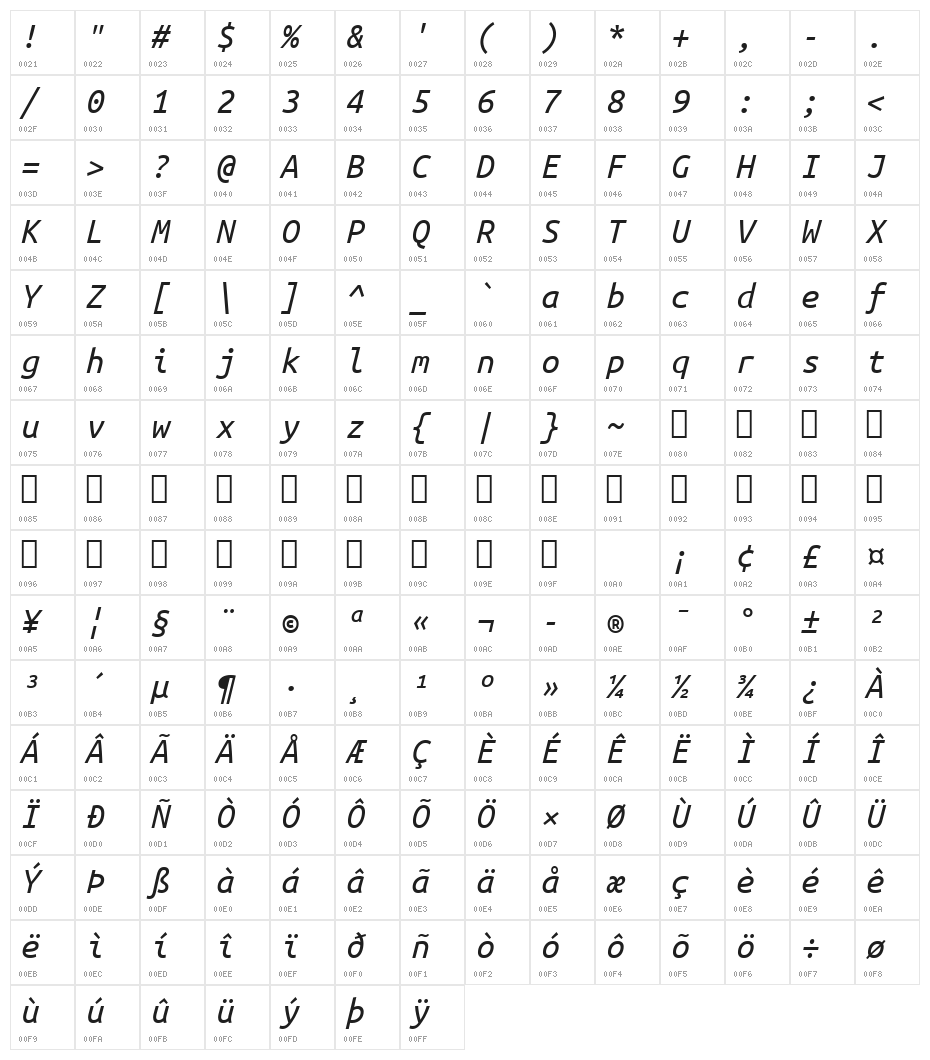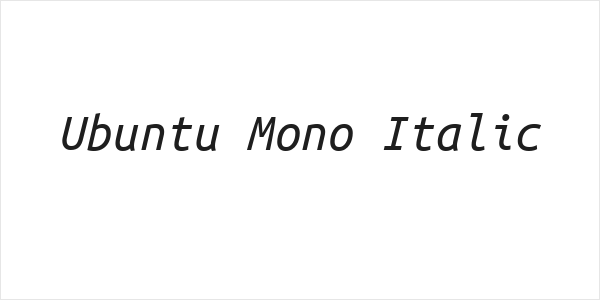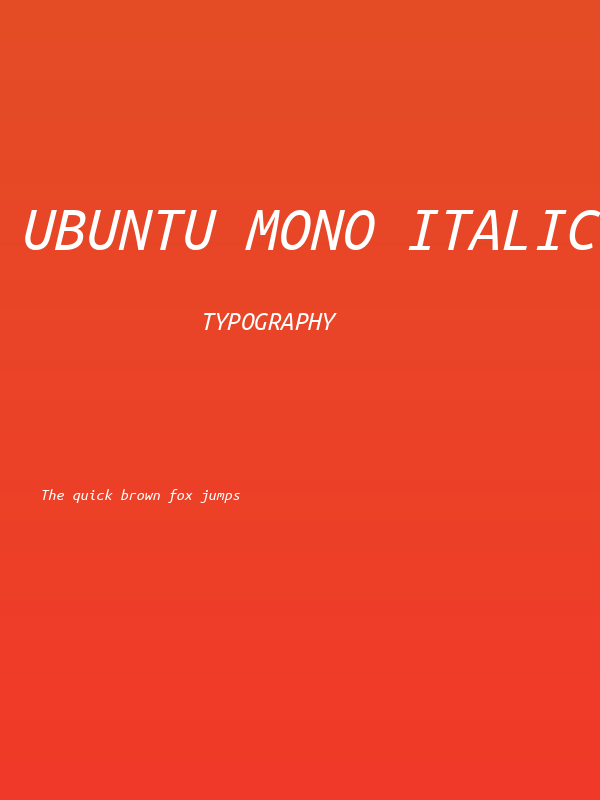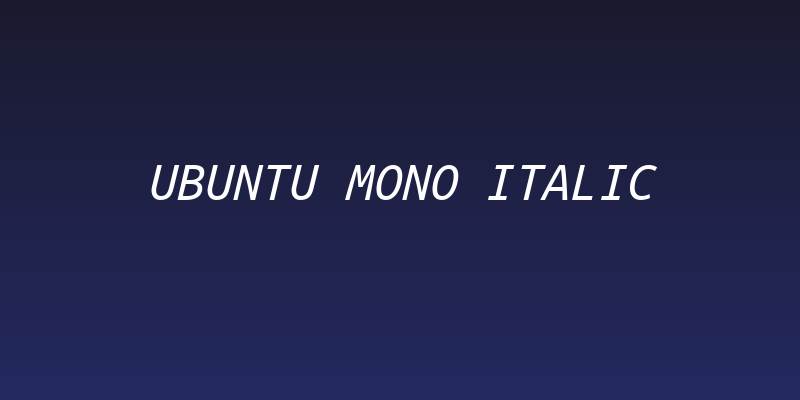
Ubuntu Mono Italic Font
Ubuntu Mono Italic Description
This font features a clean and modern monospaced design with a distinct italic slant. Each character is evenly spaced, providing a uniform appearance that is ideal for coding and technical documentation. The strokes are consistent in width, offering a low contrast that enhances readability. The font maintains a sleek and professional look, with slightly rounded edges that add a touch of softness to its overall appearance. Its clarity and precision make it suitable for both digital and print media, ensuring legibility across various platforms.
| Use Case | Coding, Technical documentation, Digital media |
| Proposed Projects | Ideal for coding environments, technical documentation, and any project requiring a clean, readable monospaced font. |